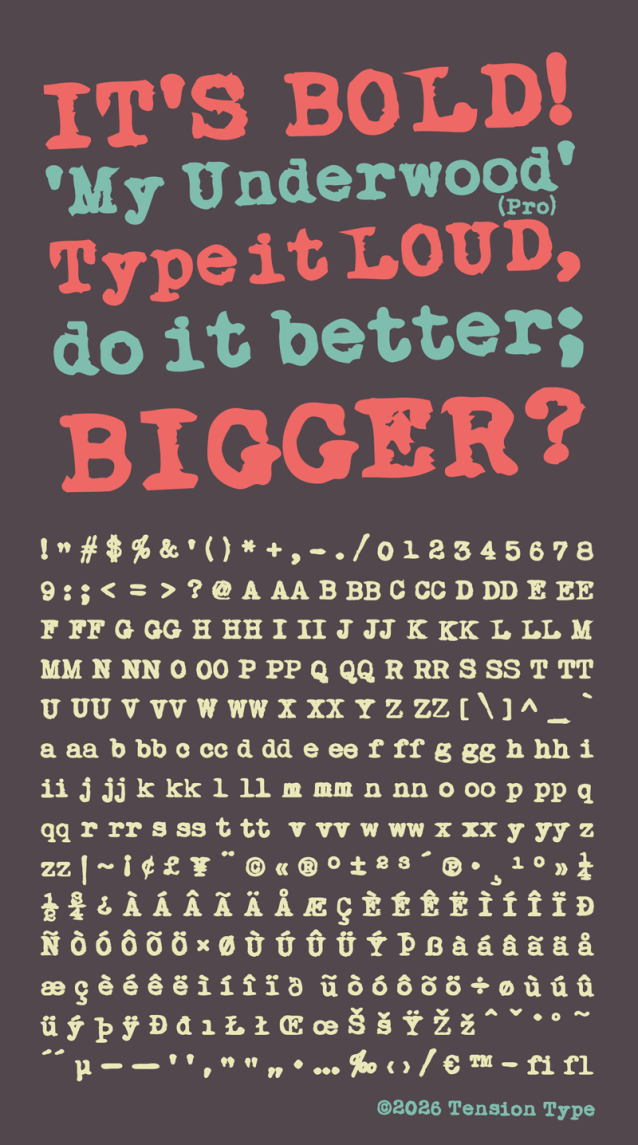
My Underwood Pro Font
My Underwood Pro Font is a simple and modern display font suitable for quotes, logos, headings, titles, and many more. Use it on any of your creative projects, and your designs will become outstanding!